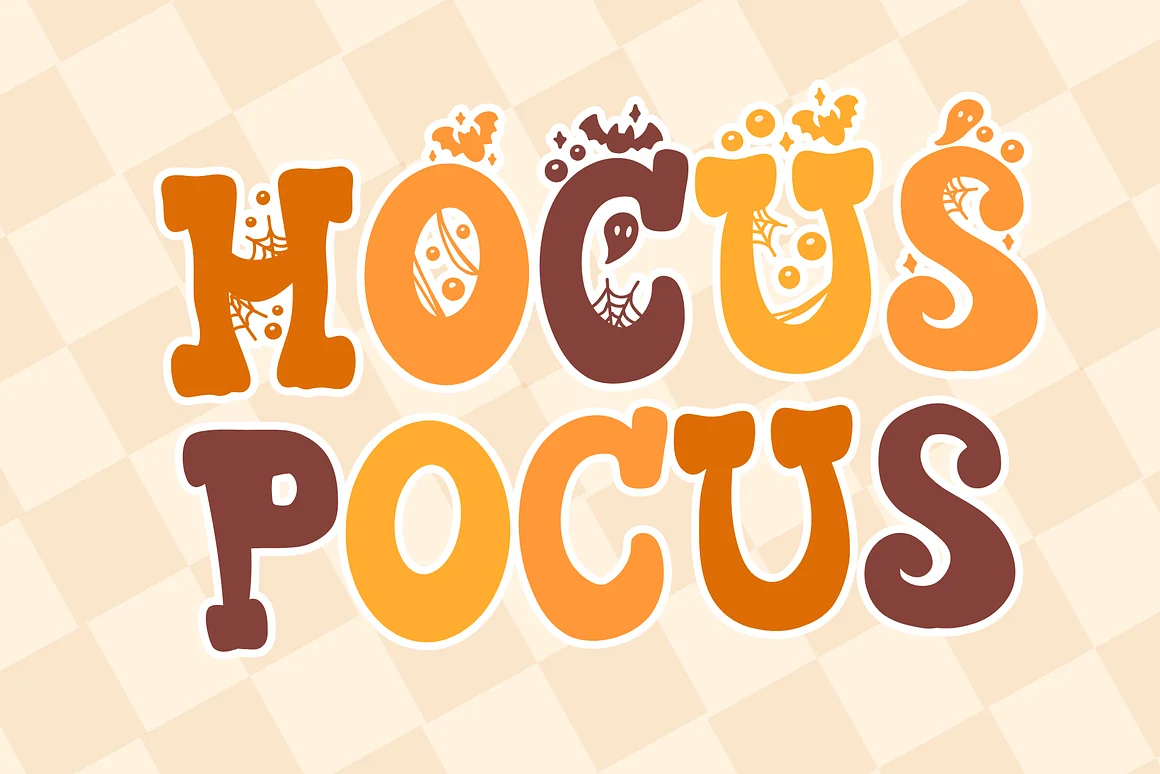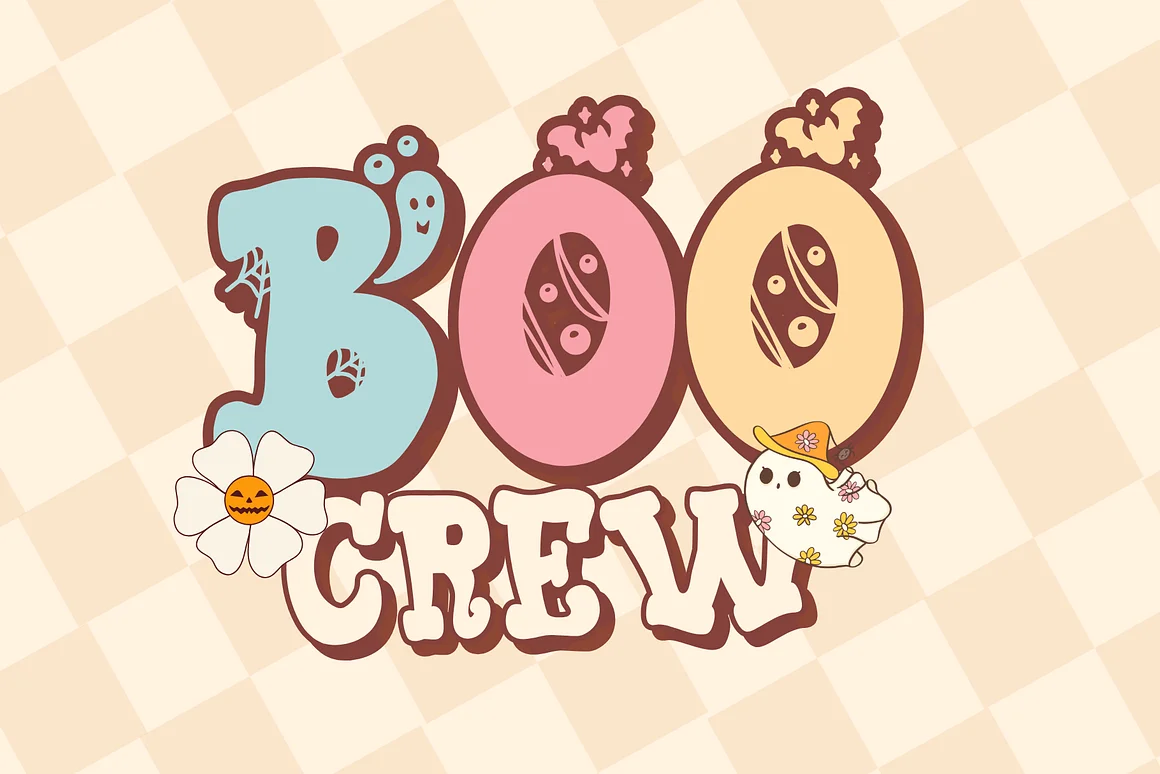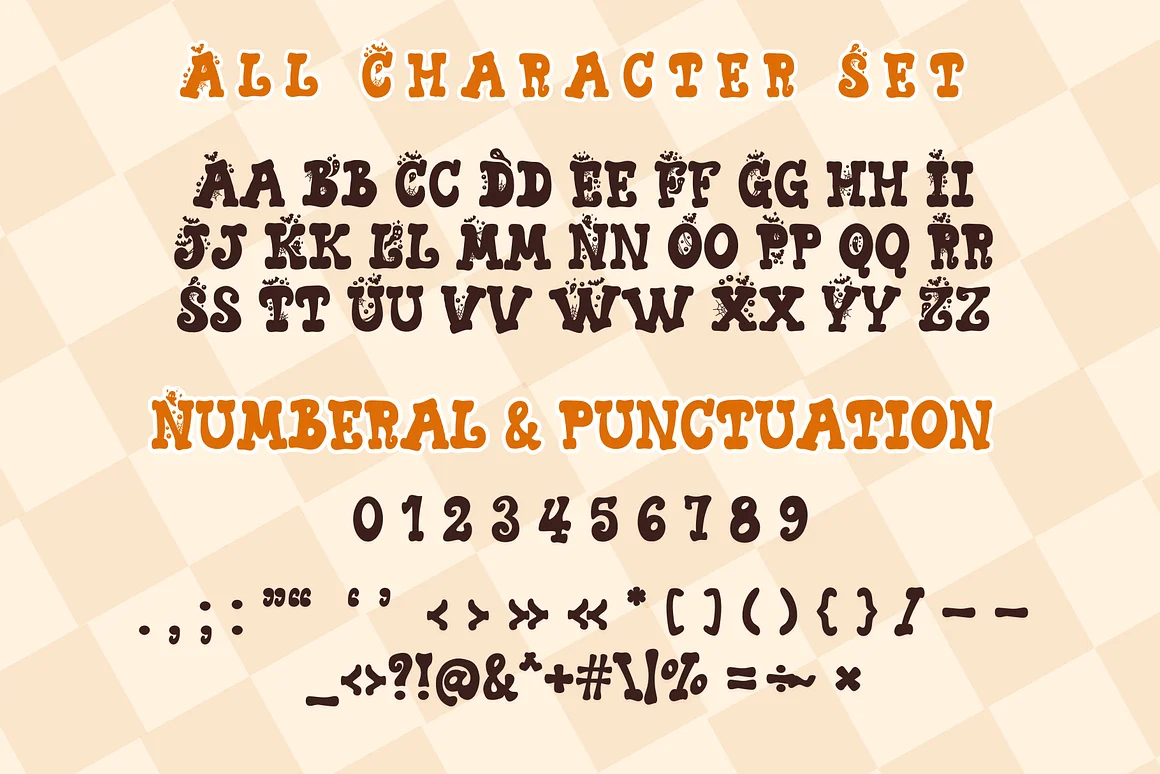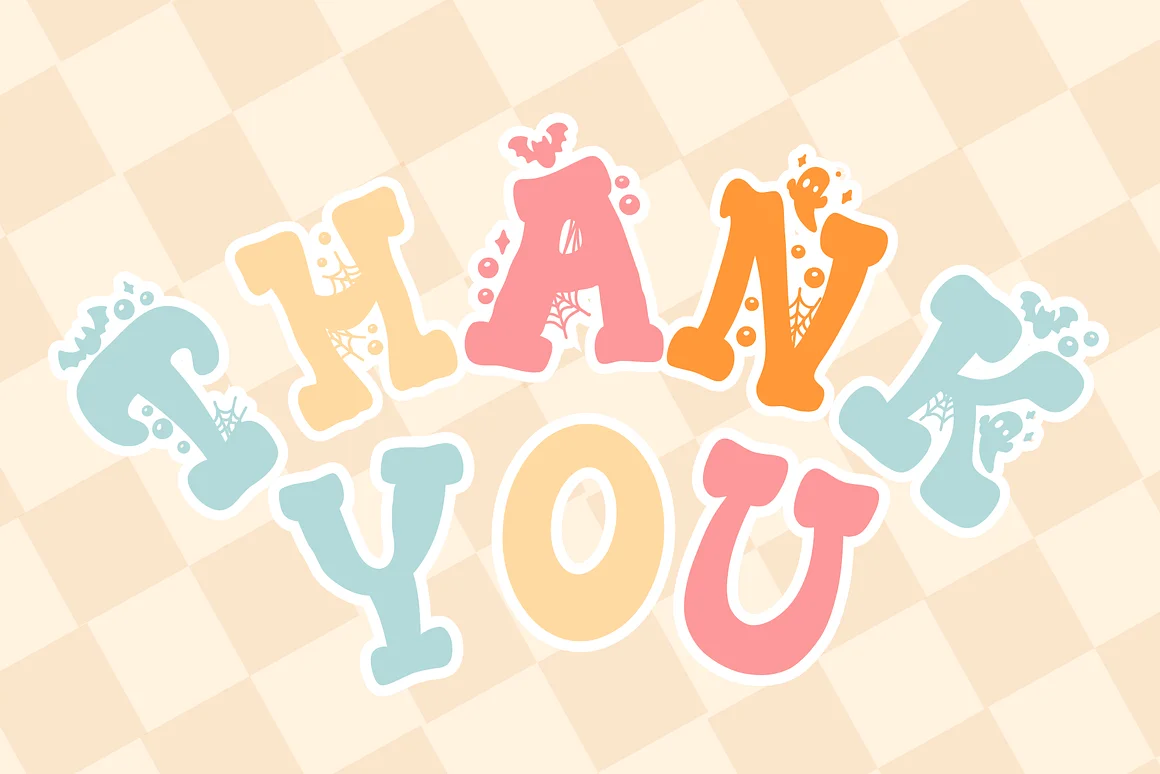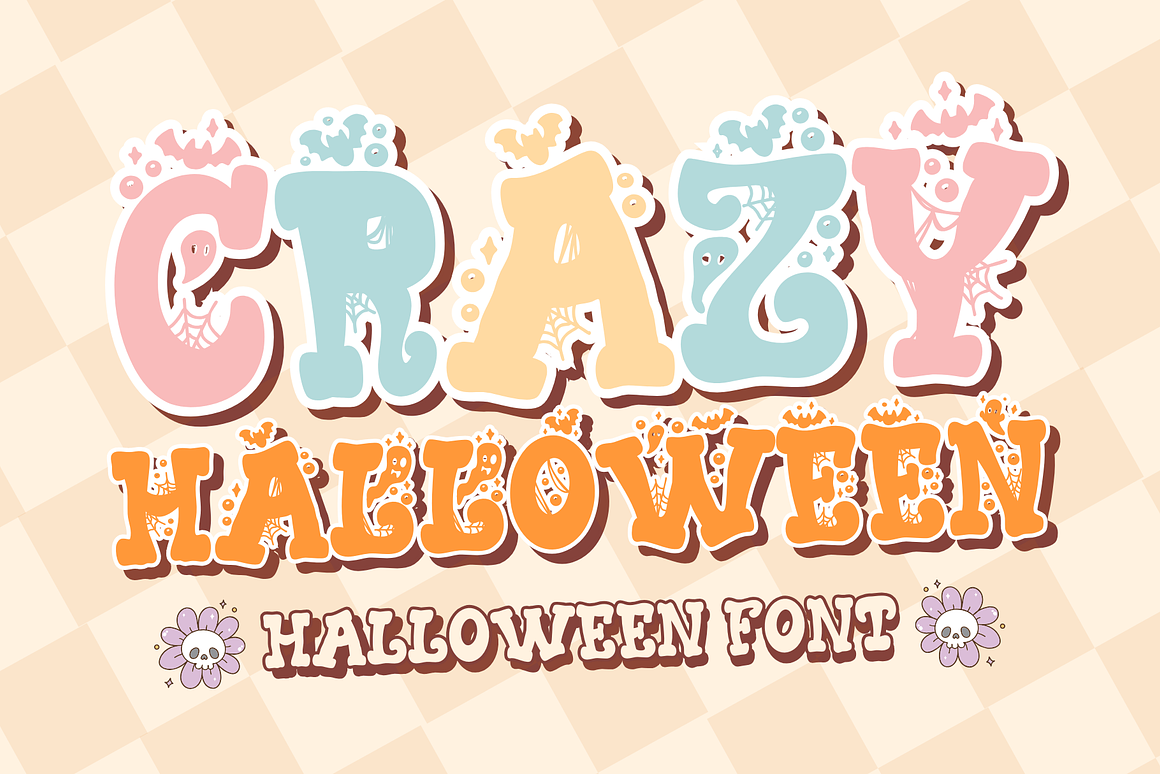
Crazy Halloween is a Halloween Font
This wild font is perfect for chaotic Halloween parties, crazy costume celebrations, insane Halloween decorations, wild horror events, madly fun Halloween marketing, crazy Halloween contests, wildly creative seasonal branding, insanely entertaining Halloween displays, crazy monster parties, and wildly exciting Halloween messaging materials.
Crazy Halloween is a Halloween Font is exciting because it captures the deliriously fun and wildly unpredictable energy of Halloween celebrations that throw caution to the wind through its chaotically crafted letterforms that seem to dance with manic energy and supernatural madness. The font features wildly irregular characters with crazy proportions and insanely playful details that evoke the spine-tingling atmosphere of Halloween parties where anything can happen and normal rules no longer apply, incorporating twisted flourishes and mad elements that create typography as unpredictably entertaining and memorably wild as a costume party where everyone has lost their minds to Halloween madness. Each letter showcases the liberating insanity and creative chaos that makes crazy Halloween celebrations so irresistibly fun, with mad curves and wild accents that transform ordinary text into expressions of Halloween insanity that capture the way October 31st gives everyone permission to embrace their wildest, craziest, most creative selves in a celebration of supernatural madness and delightfully unhinged fun.
The Crazy Halloween is a Halloween Font family includes wildly chaotic variations: Regular, Bold, Light, Insane, and Mad versions. The collection features special crazy elements including wild accents, chaotic flourishes, mad details, and insanely fun ornaments. Additional components include crazy borders, wild frames, chaotic decorations, and insanely entertaining ornamental designs that enhance the font's crazy Halloween appeal and create cohesive wildly fun Halloween themes.
Wild party planners and crazy Halloween enthusiasts will find Crazy Halloween is a Halloween Font to be an invaluable resource for creating wildly entertaining Halloween communications that celebrate the liberating madness and creative chaos that make Halloween the most deliriously fun night of the year. This crazily crafted font transforms ordinary Halloween messaging into wild expressions that resonate with audiences who embrace Halloween as a time to unleash their wildest creativity and most delightfully insane celebration instincts.
The typeface includes comprehensive character support with chaotic styling that maintains excellent readability while conveying the wild energy and crazy atmosphere of insanely fun Halloween celebrations. The font's wildly entertaining design ensures deliriously fun results across both amateur crazy applications and professional wildly creative Halloween productions.
Perfect for crazy Halloween parties, wild celebrations, insanely creative events, and wildly entertaining seasonal marketing, this font delivers chaotically fun visual impact that communicates creative madness, wild energy, and the deliriously entertaining chaos that makes crazy Halloween such a wildly liberating and unforgettably fun celebration of supernatural insanity.